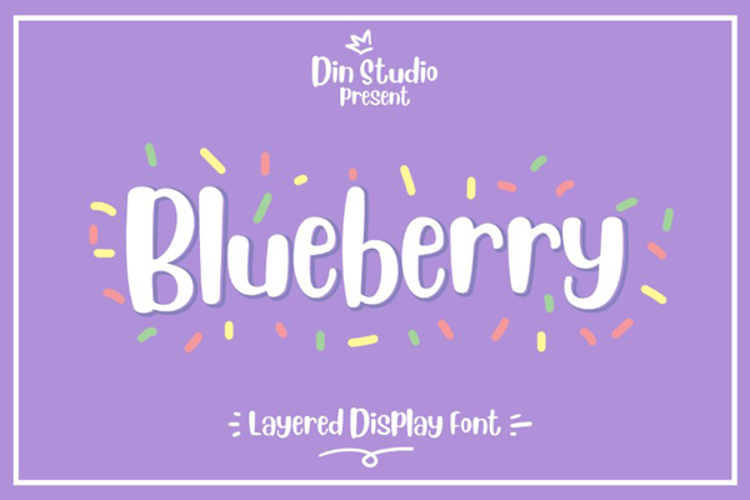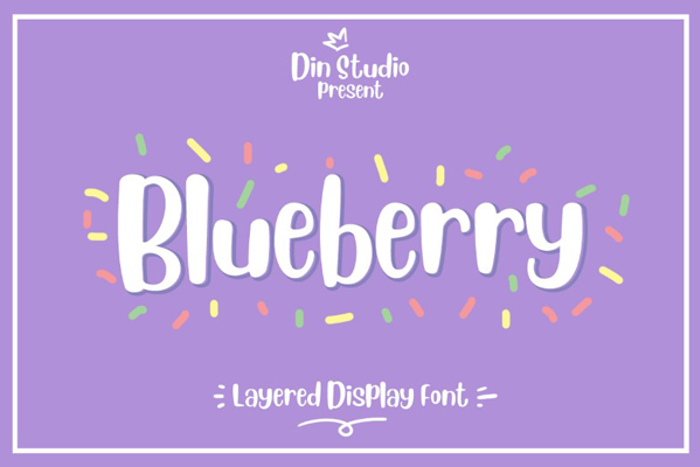
Blueberry Font
Product Description :
Blueberry Playful Font is a cute layered font created by Din Studio. It is appropriate for a variety of design projects, including branding, packaging, and lettering. This font includes uppercase and lowercase letters, numbers, and a wide variety of punctuation. Blueberry elevates your latest project to new heights.
Features include:
• Multilingual Supports
• PUA Encoded
• Numerals and Punctuations